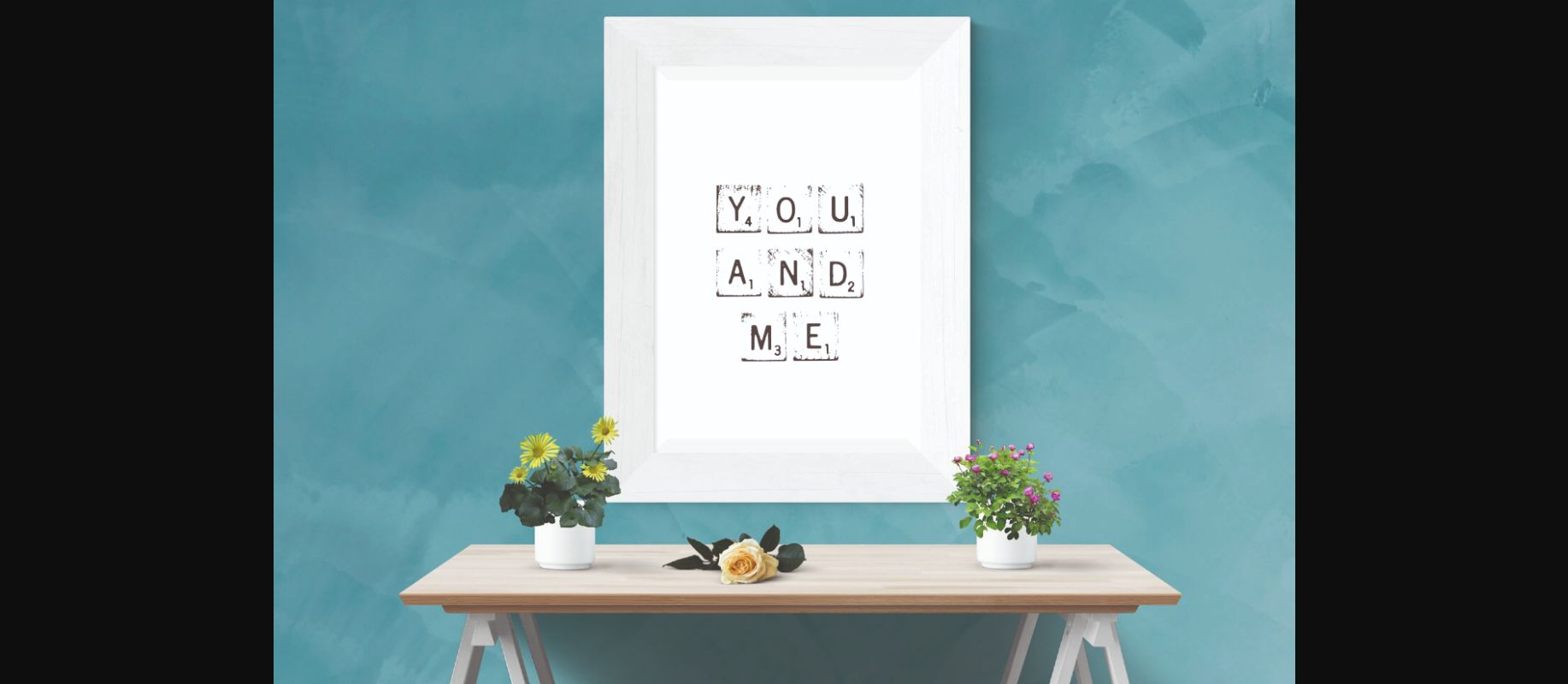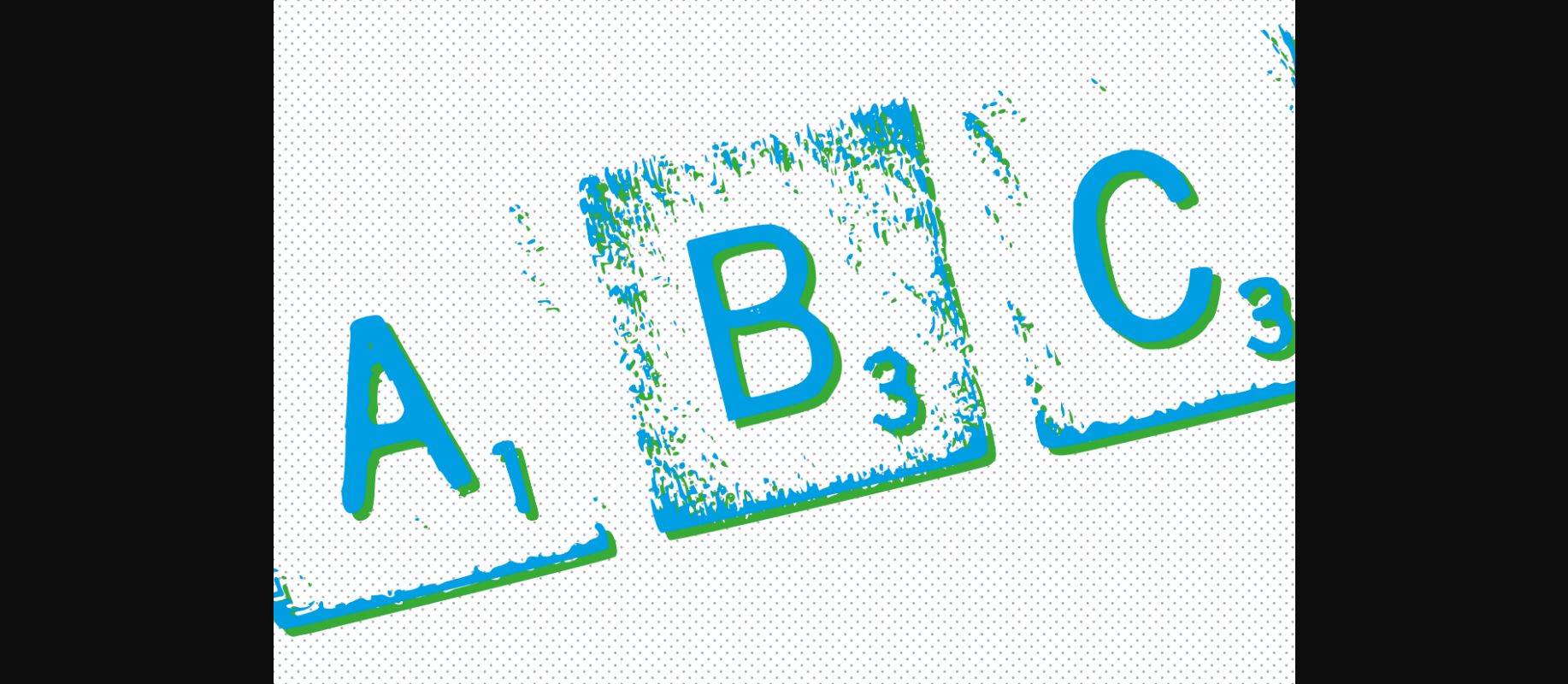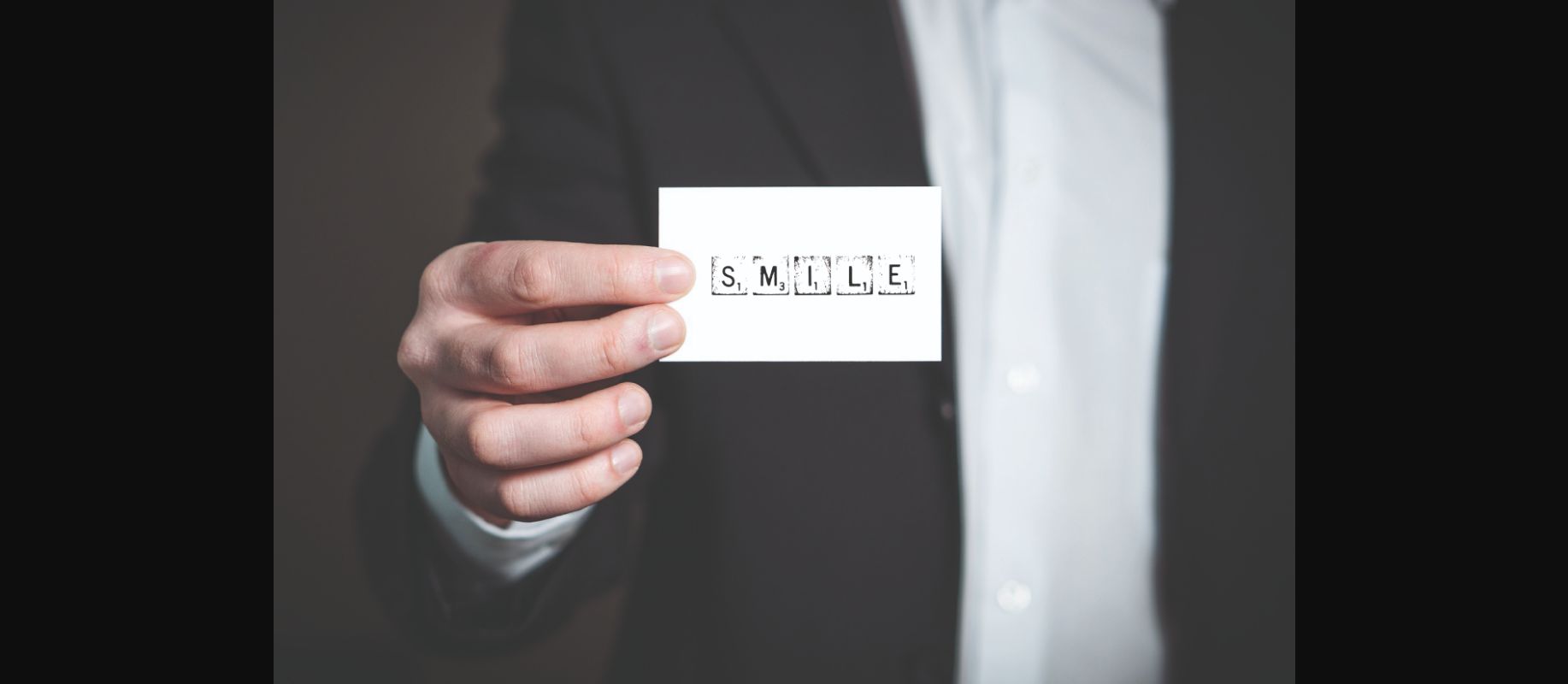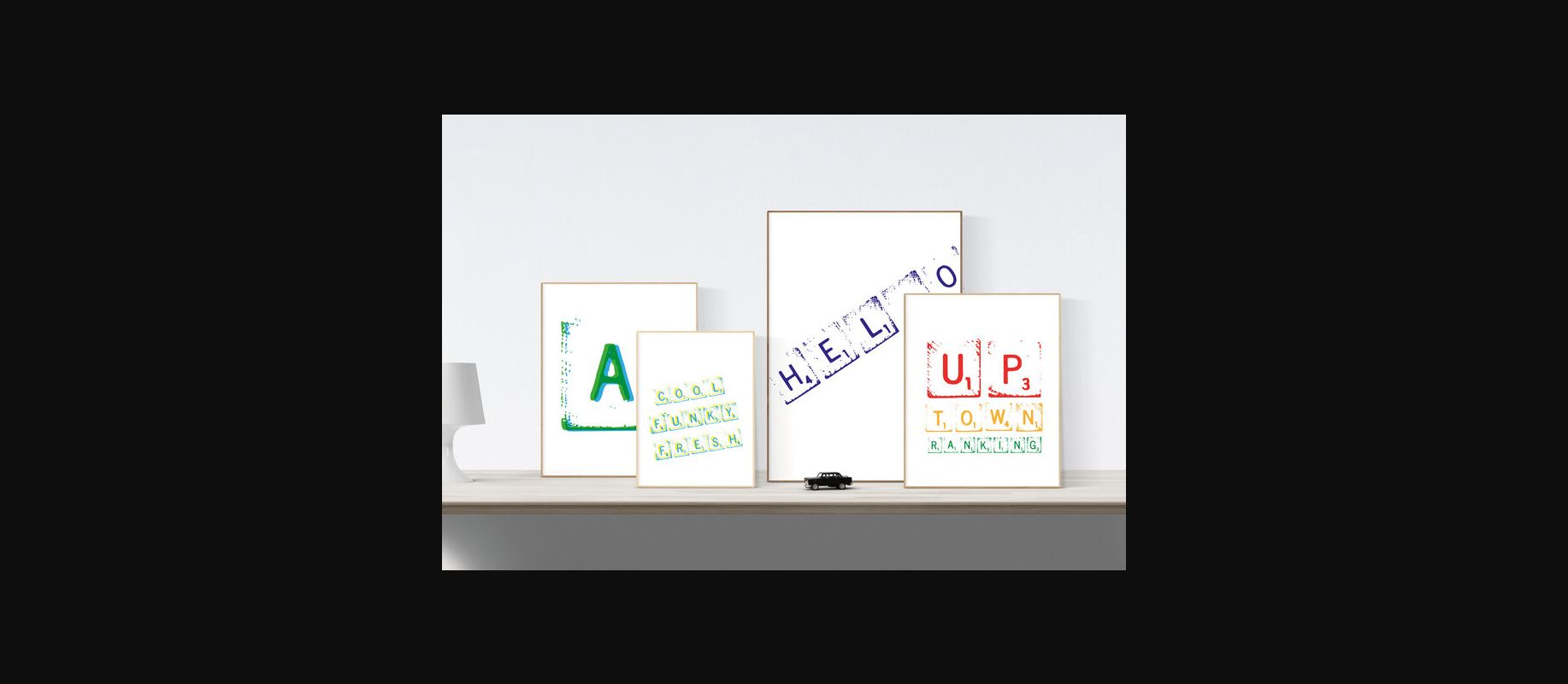
Lexiko Font
About Lexiko Font
Lexicon was the original name for the classic board game, ‘Scrabble’. So get the look with a set of wooden style A-Z roughed up looking letter blocks (complete with scoring numbers) and blank tiles for even higher scores! Make something with cool messages for the home, use for invites, great for prints, mugs and canvases. Let your imagine nation go wild with the a full alphabet set with a classic chic board game style font.